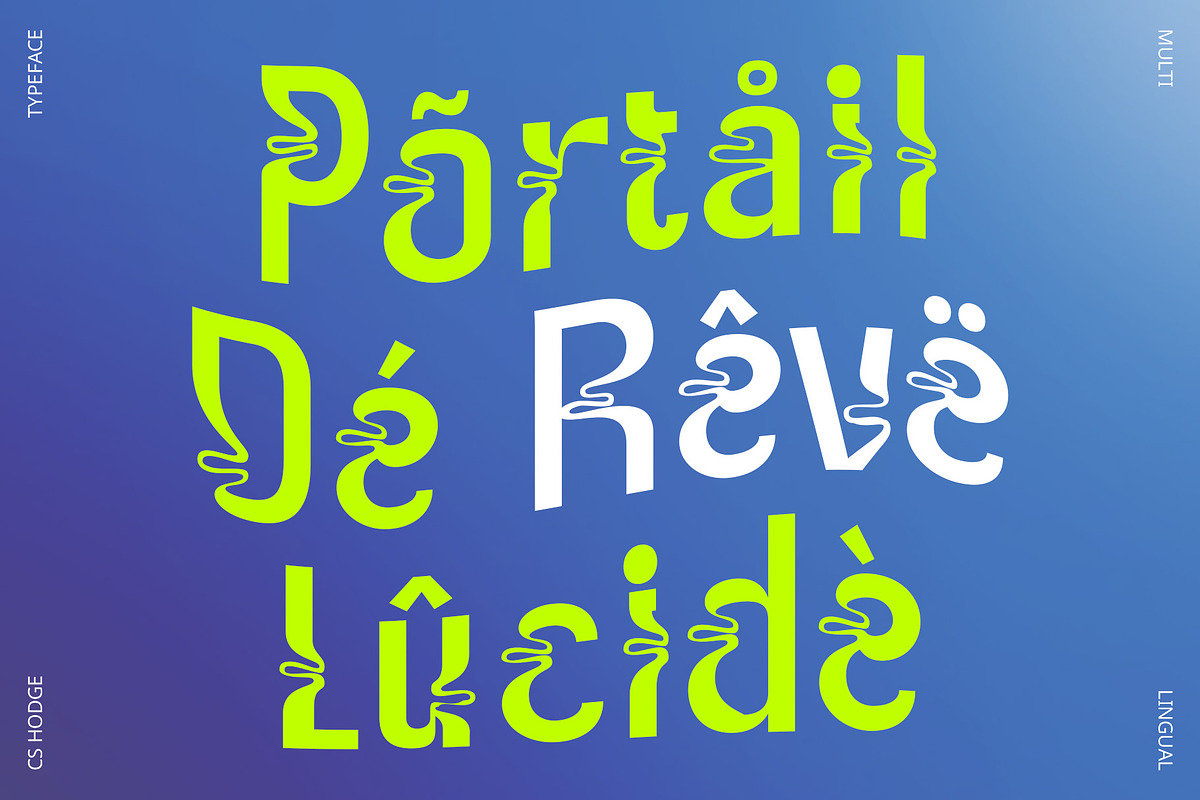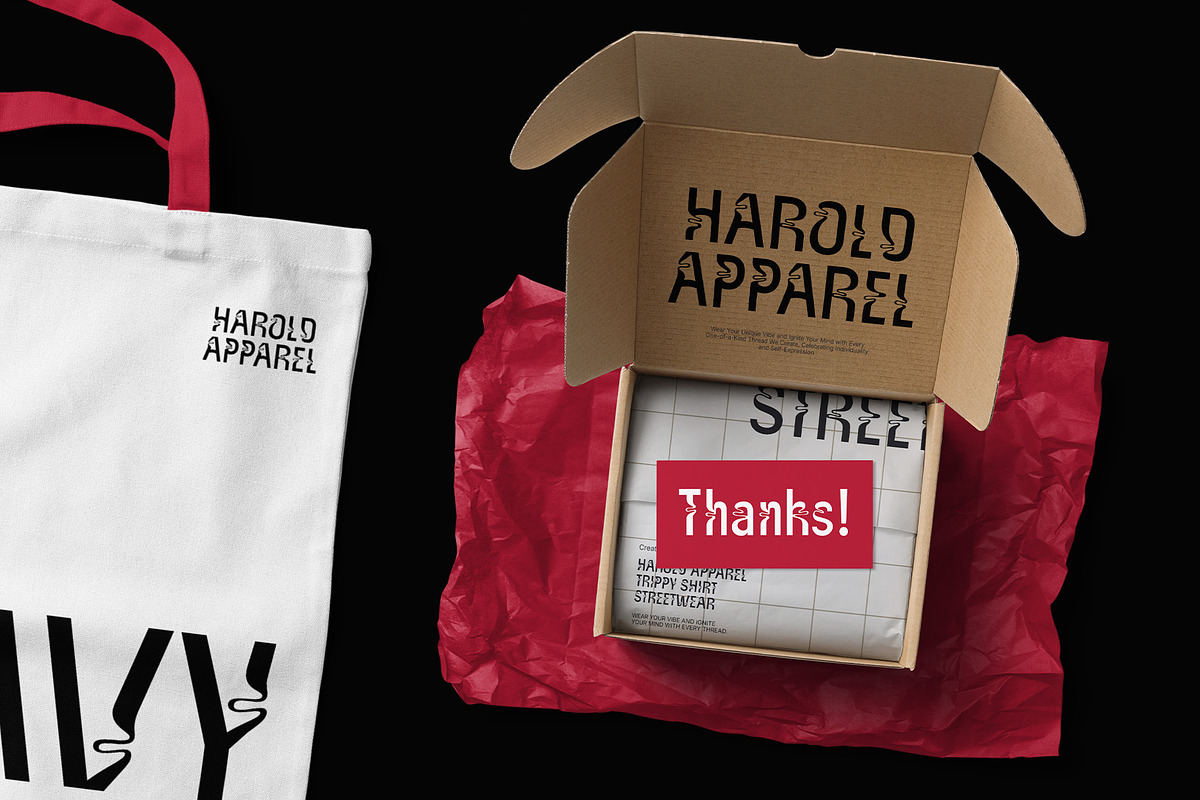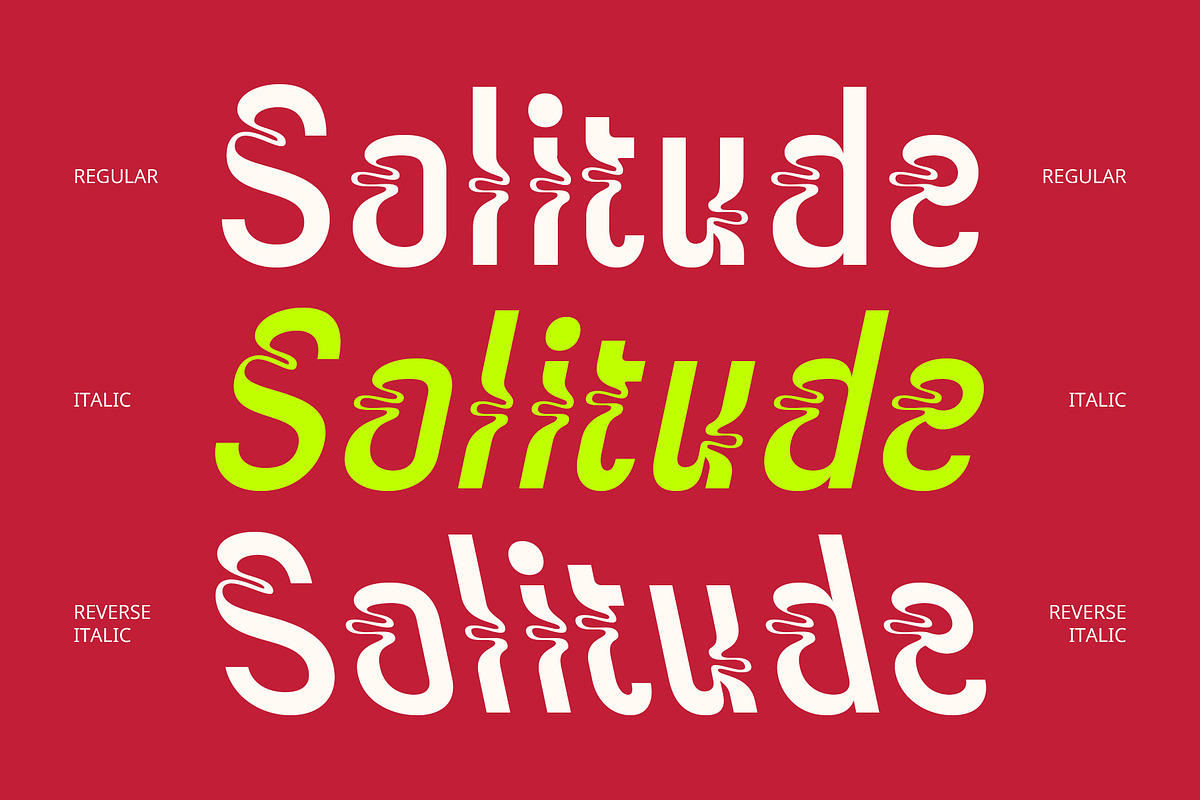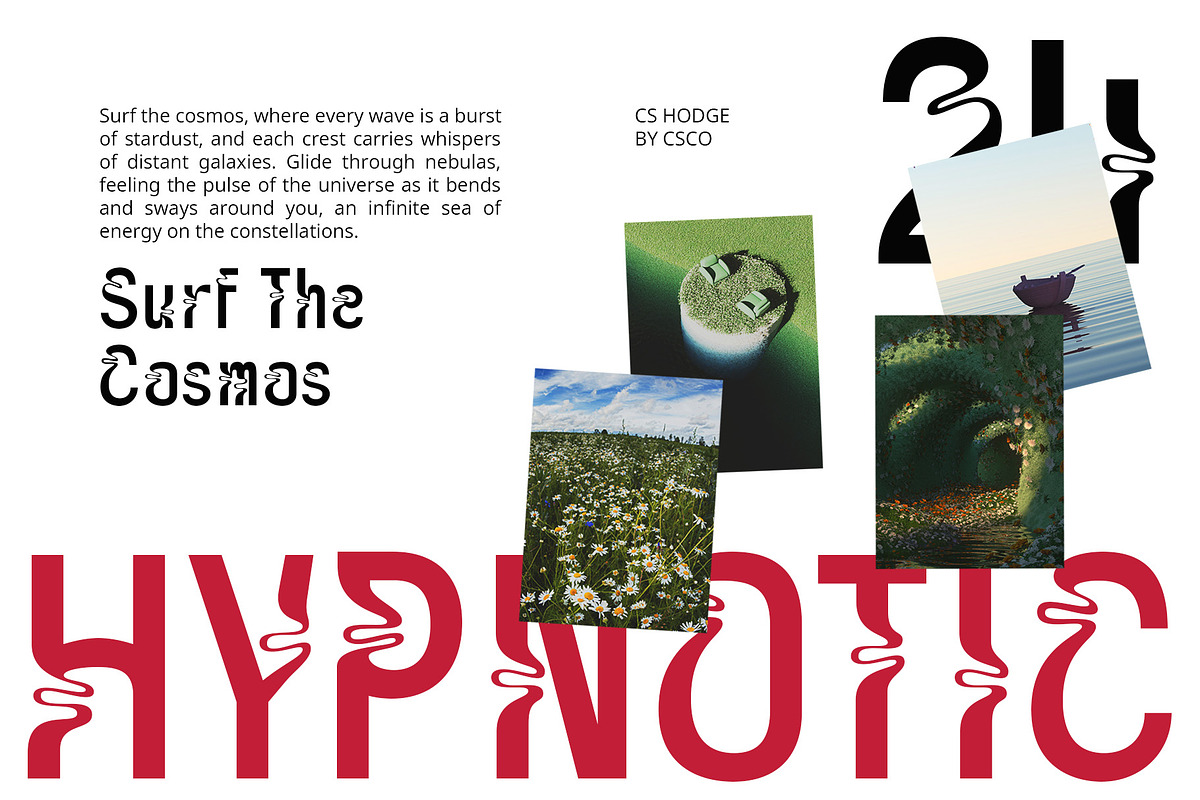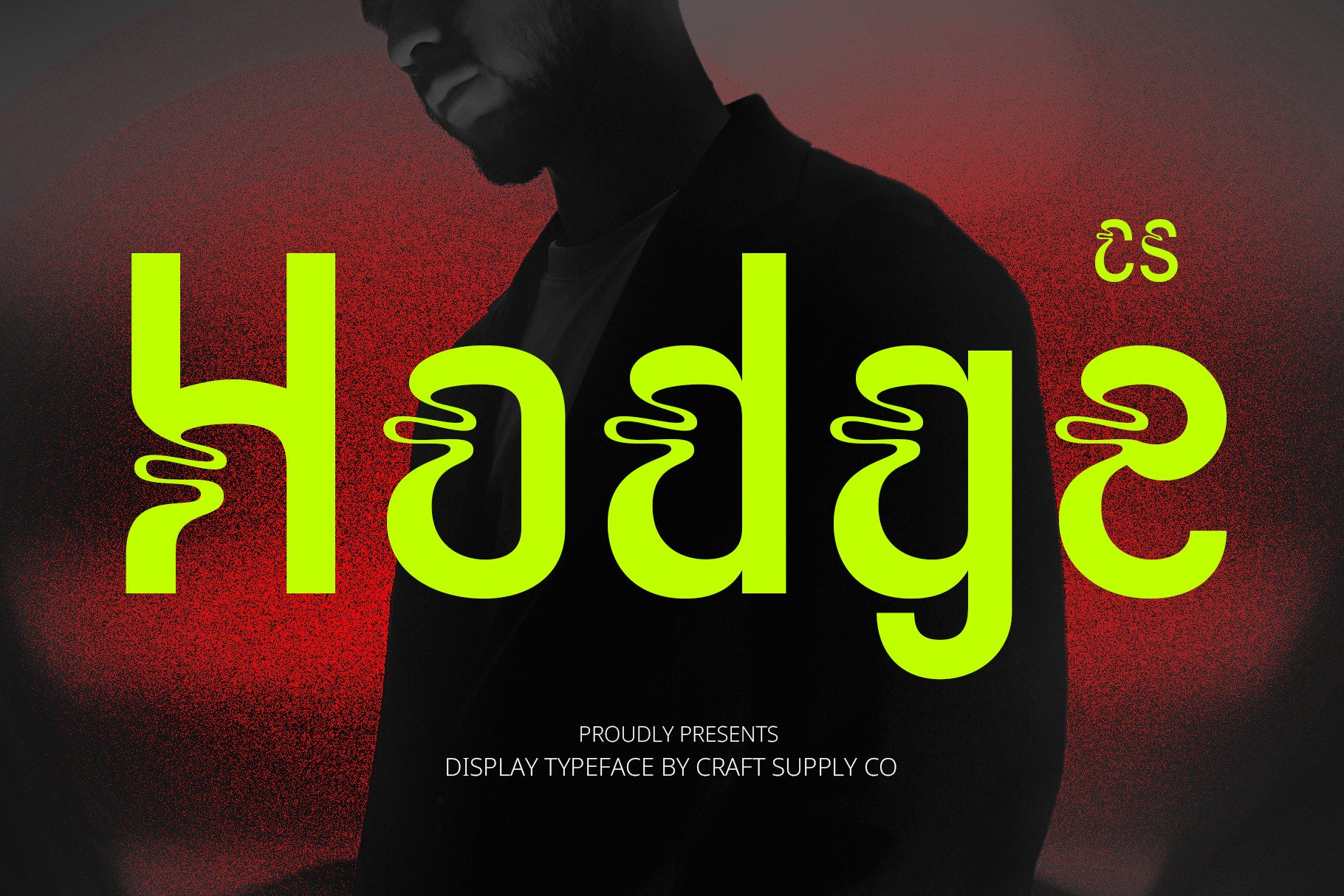
CS Hodge – Trippy Font
CS Hodge Font: The Psychedelic Display Font
Unleashing Creativity with Every Letter CS Hodge is a modern display font that embodies a cheerful and funky spirit through its trippy design. Characterized by unconventional shapes, this font captivates with its unique letterforms that often feature curved and distorted elements, creating an illusion of movement and energy.
Dynamic Movement and Vivid Colors The playful aesthetic of CS Hodge is further enhanced by the use of bright, contrasting colors that inject vibrancy and dynamism into your designs. Each character bursts with life, making it ideal for projects that seek to stand out and engage viewers. Additionally, intricate patterns and visual effects can be integrated into the letterforms, adding depth and enhancing their visual appeal.
Break Free from Tradition By disregarding traditional typographic rules, CS Hodge allows for unique and imaginative expression. This font is perfect for creative projects such as posters, graphic design, and events that celebrate artistic freedom and individuality. Its playful character invites experimentation and exploration, making it a go-to choice for designers who want to convey a sense of fun and creativity in their work.
- CS Hodge Regular
- CS Hodge Italic
- CS Hodge Reverse Italic